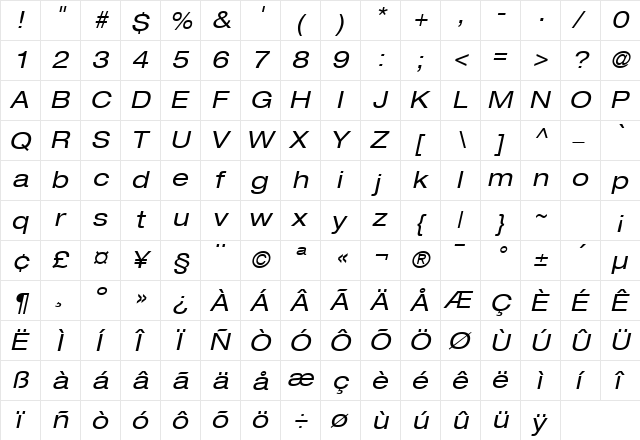
HeaveneticaExtd5 OblSH Font Preview
HeaveneticaExtd5 OblSH
HeaveneticaExtd5 OblSH Font Details
Design Context for HeaveneticaExtd5 Typeface
HeaveneticaExtd5 offers clean, dependable letterforms without strong stylistic allegiance, making it a practical choice for designers who need flexibility.
Pro Tip: Use HeaveneticaExtd5 in both headline and body roles to test its range before committing to a single application.